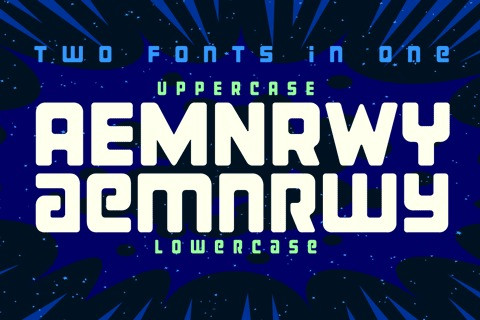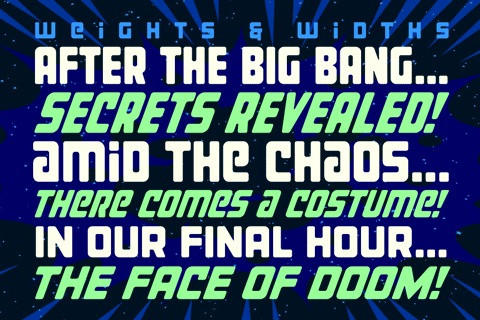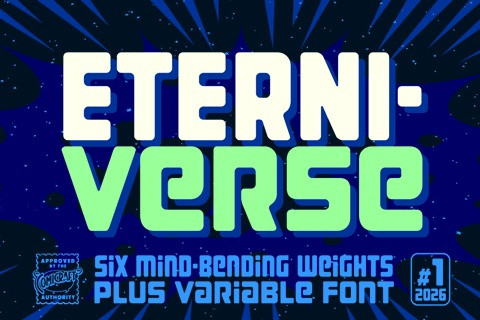
Eterniverse Font
Eterniverse Font – The universe is an endless kaleidoscope of moments taking us from one aeon into another. We live in a multiverse of madness, where countless elseworlds spin around in an alternity of possibilities, a galactic expanse we at Comicraft like to call THE ETERNIVERSE.
We are all hurtling through an infinity flux towards an inevitable doomsday but ETERNIVERSE offers hope, tall letters, extra tall letters, variable axes and a little bit of magic!